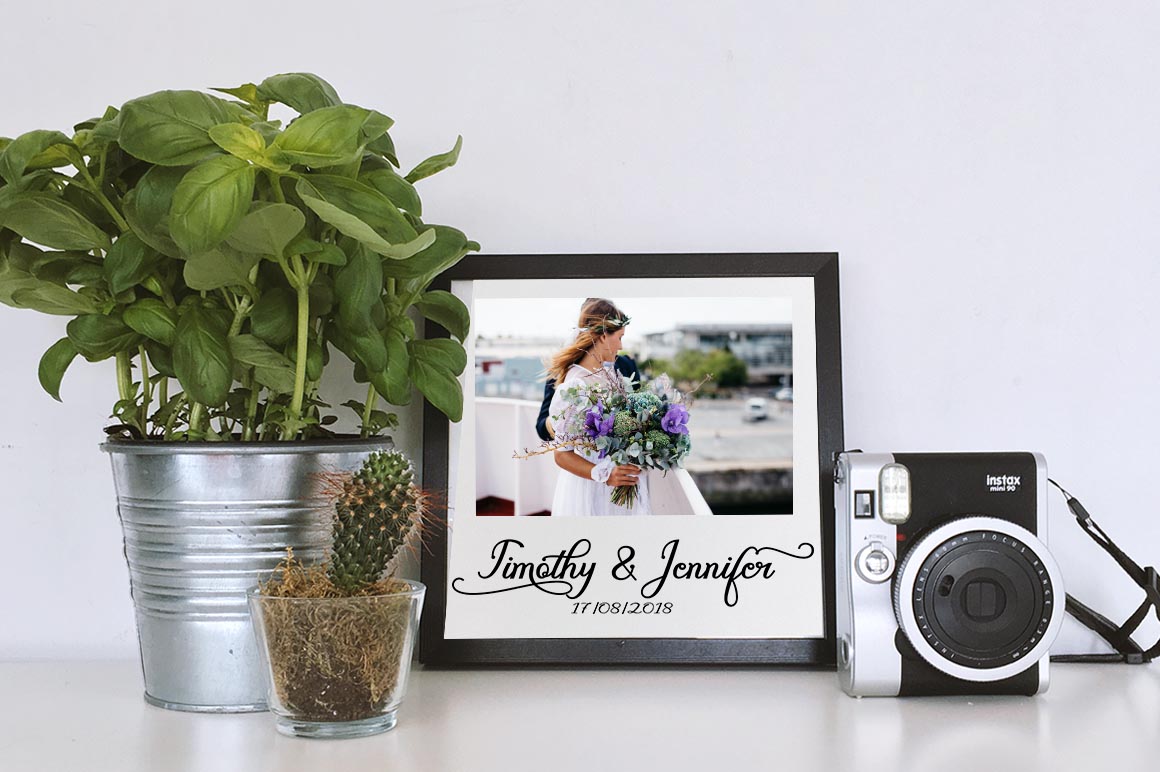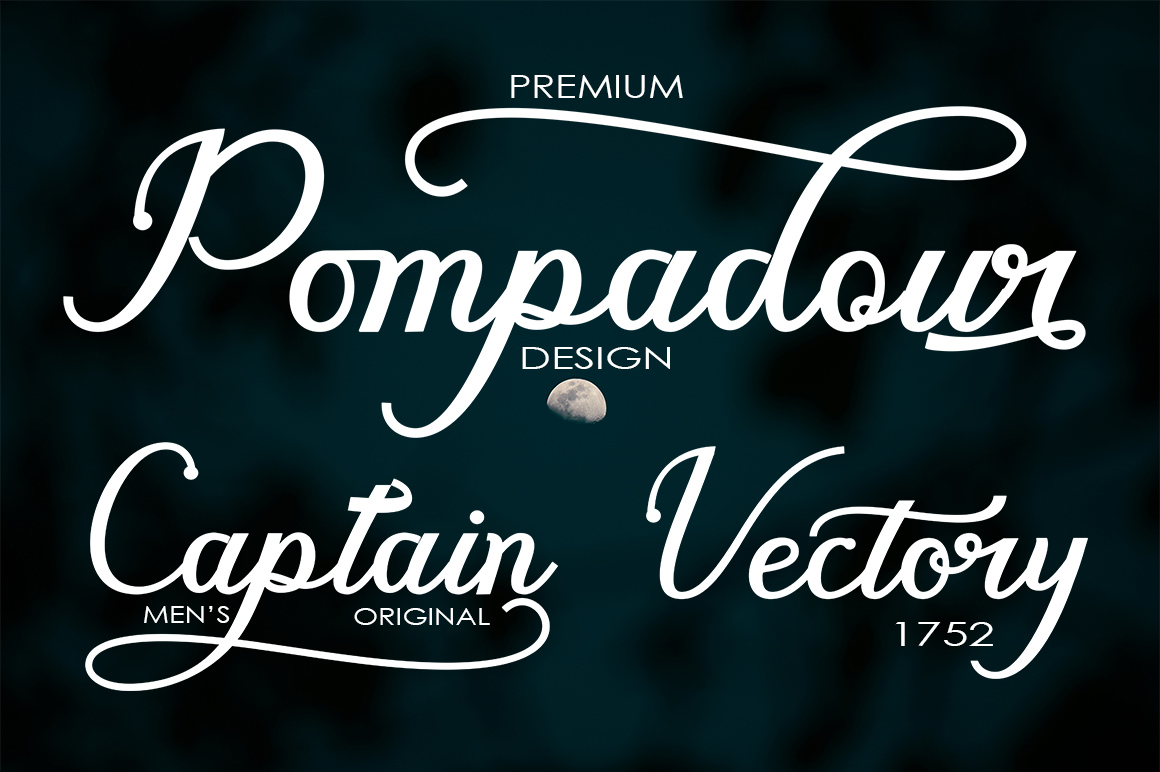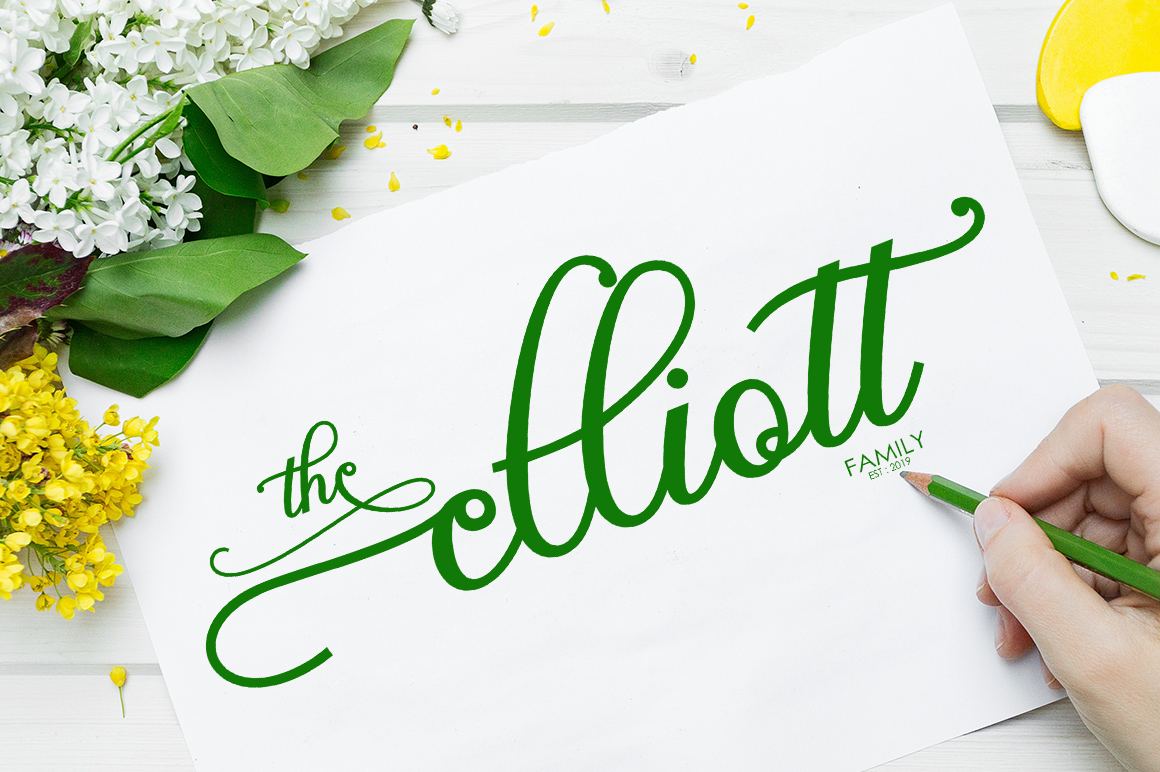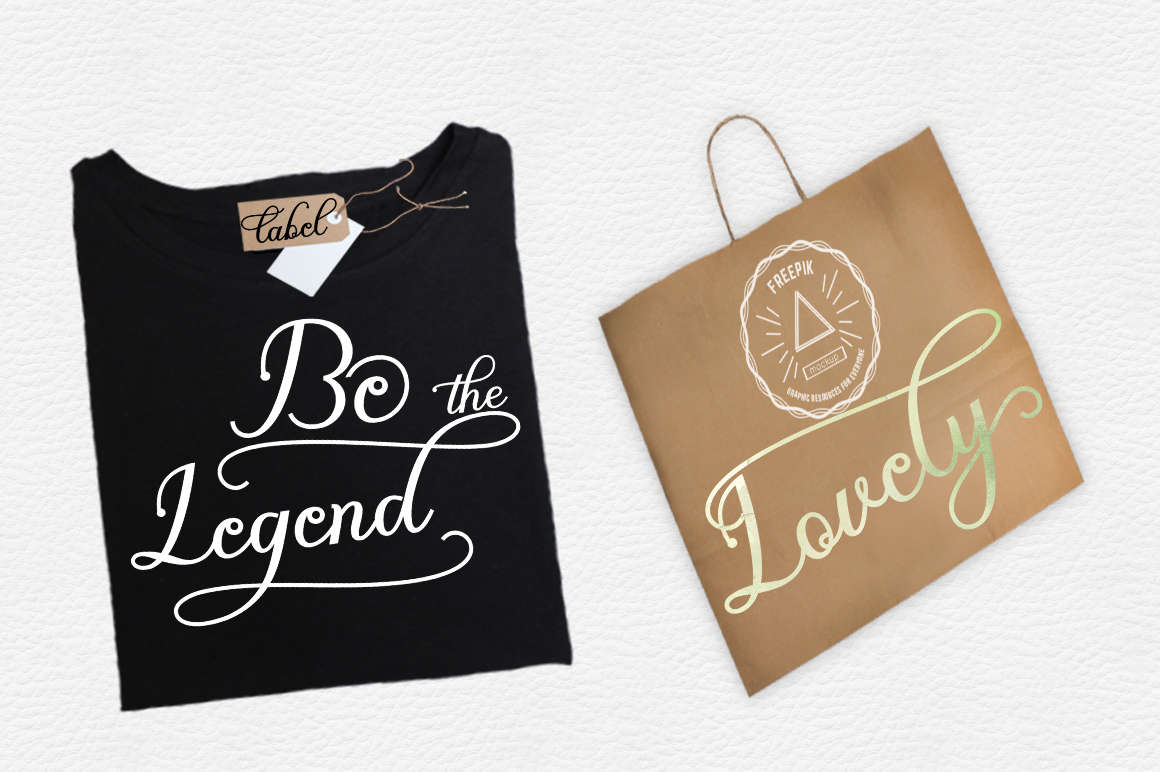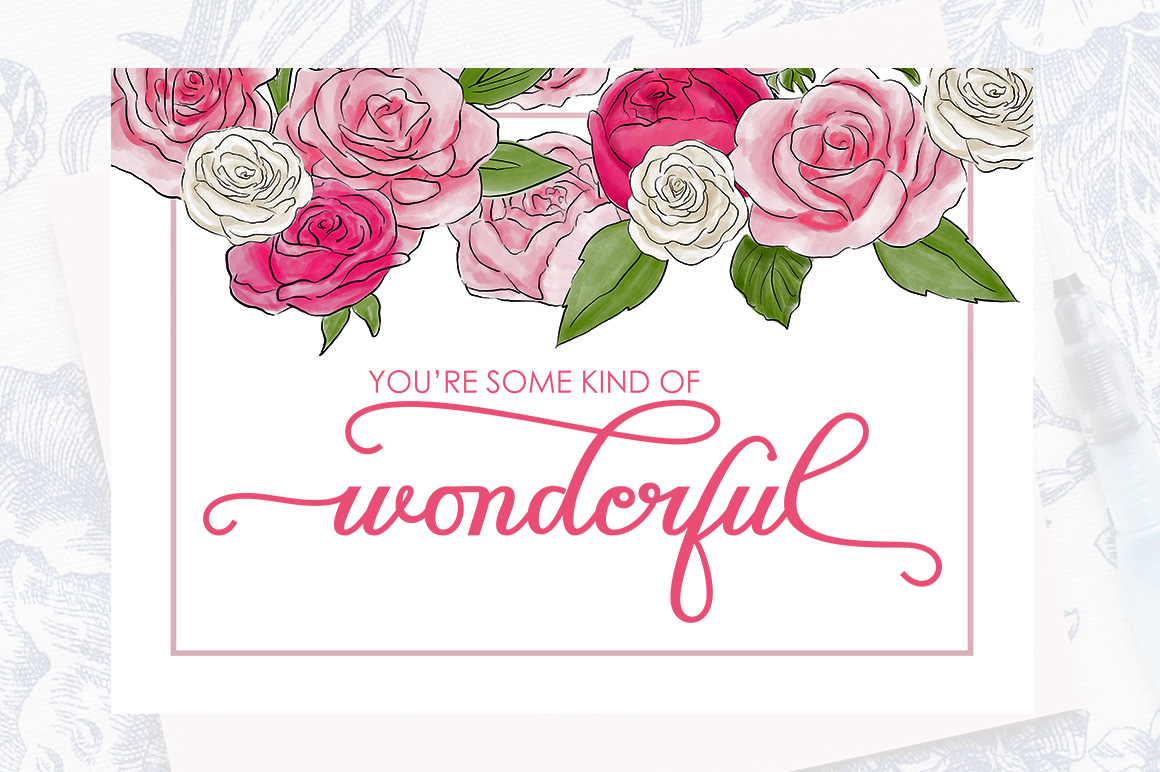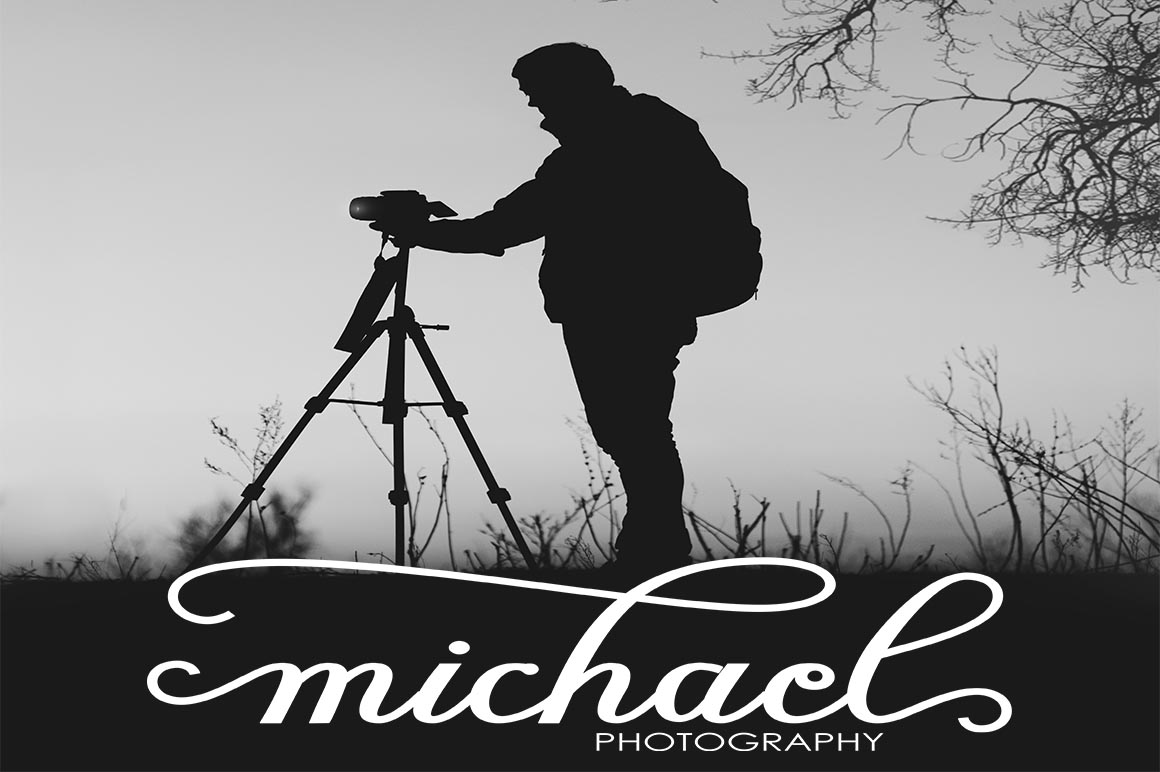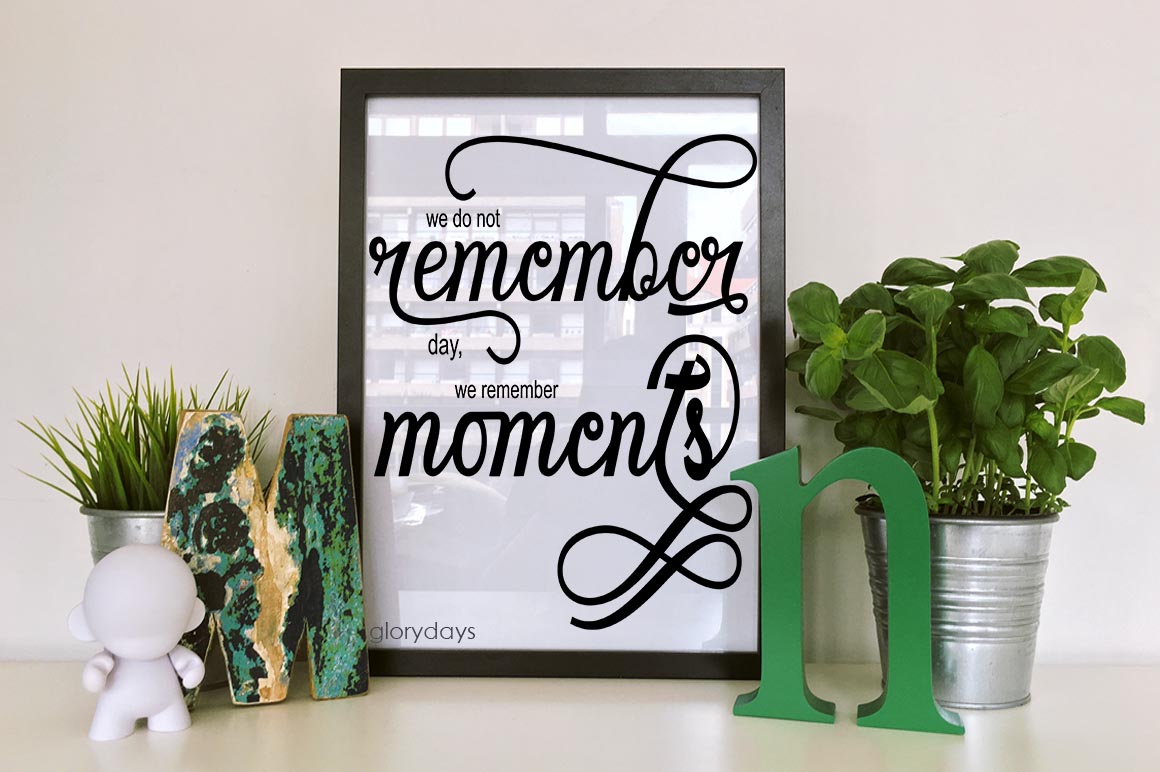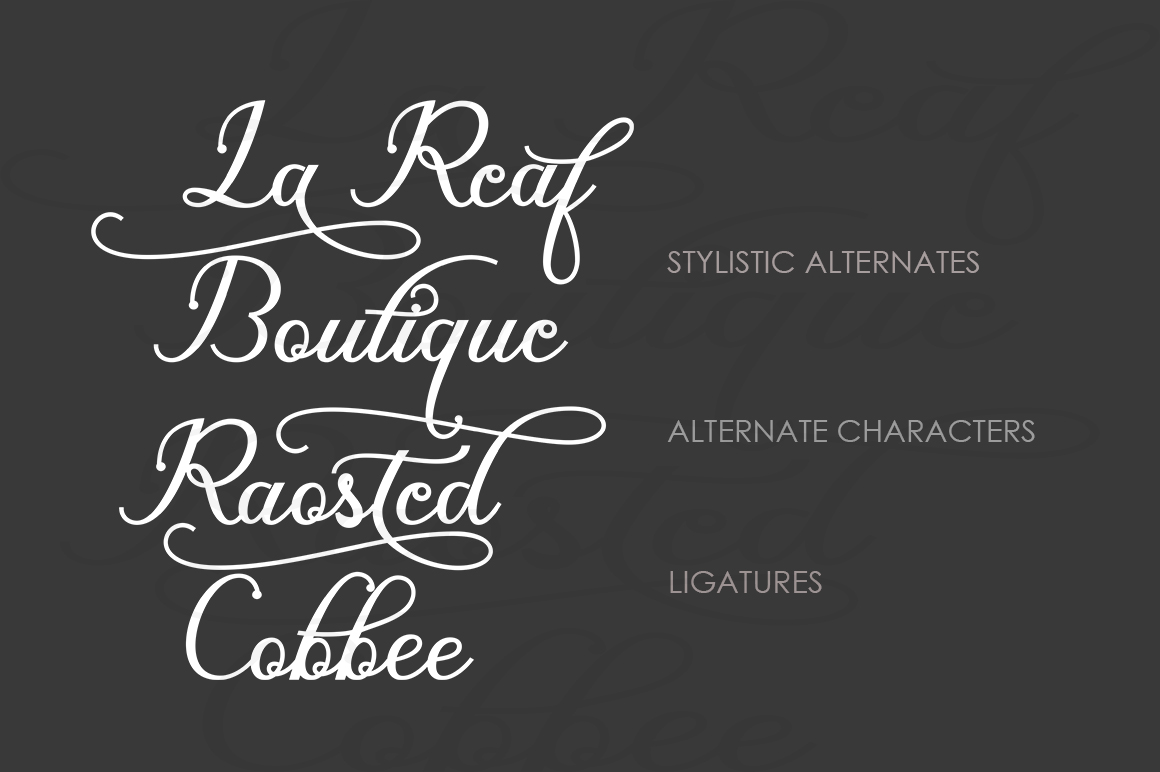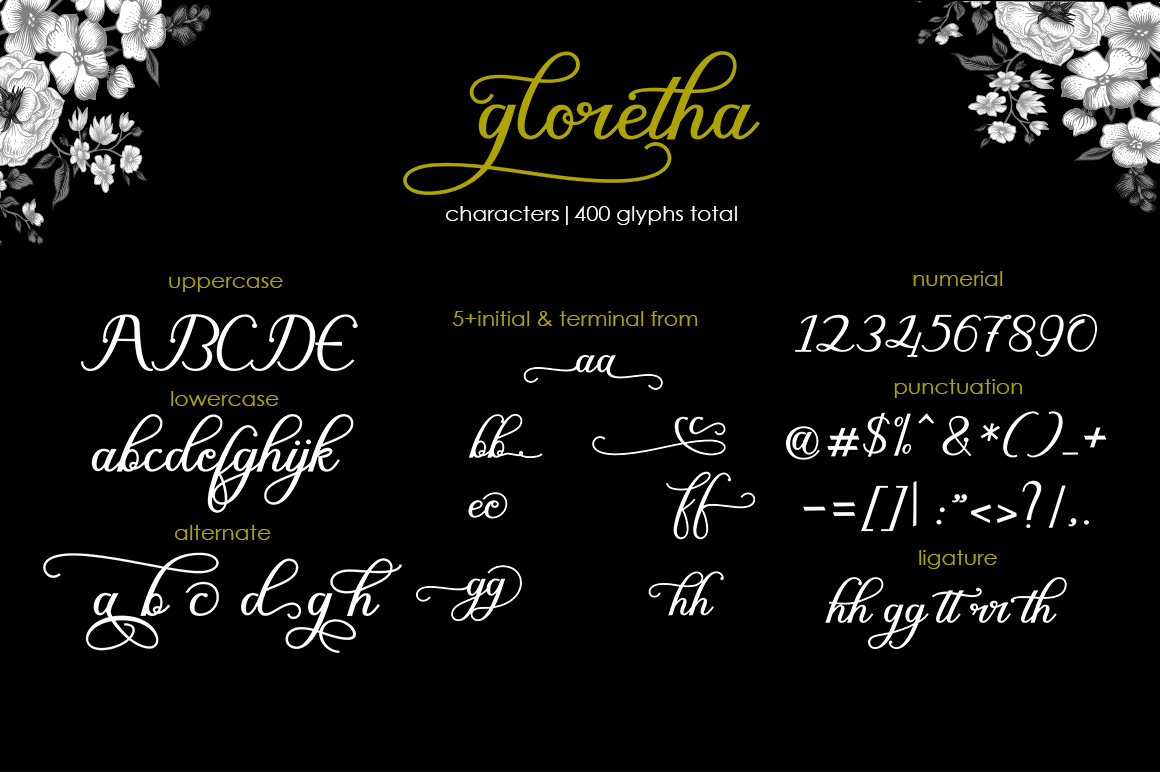
Gloretha Font
About Gloretha Font
Gloretha is a modern calligraphy-style design that comes as regular & bold.
The font is easy to read and features stunning swashes.